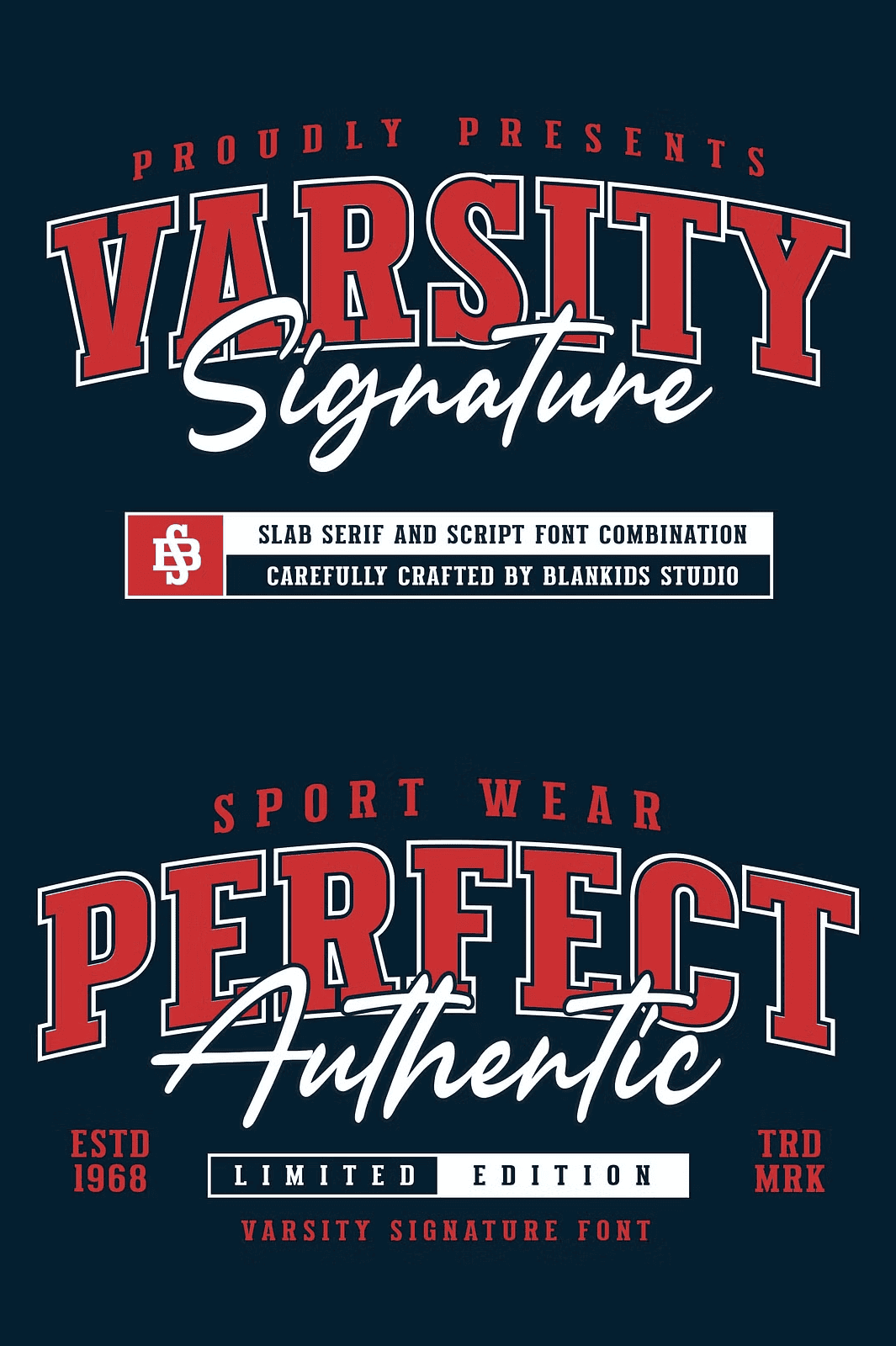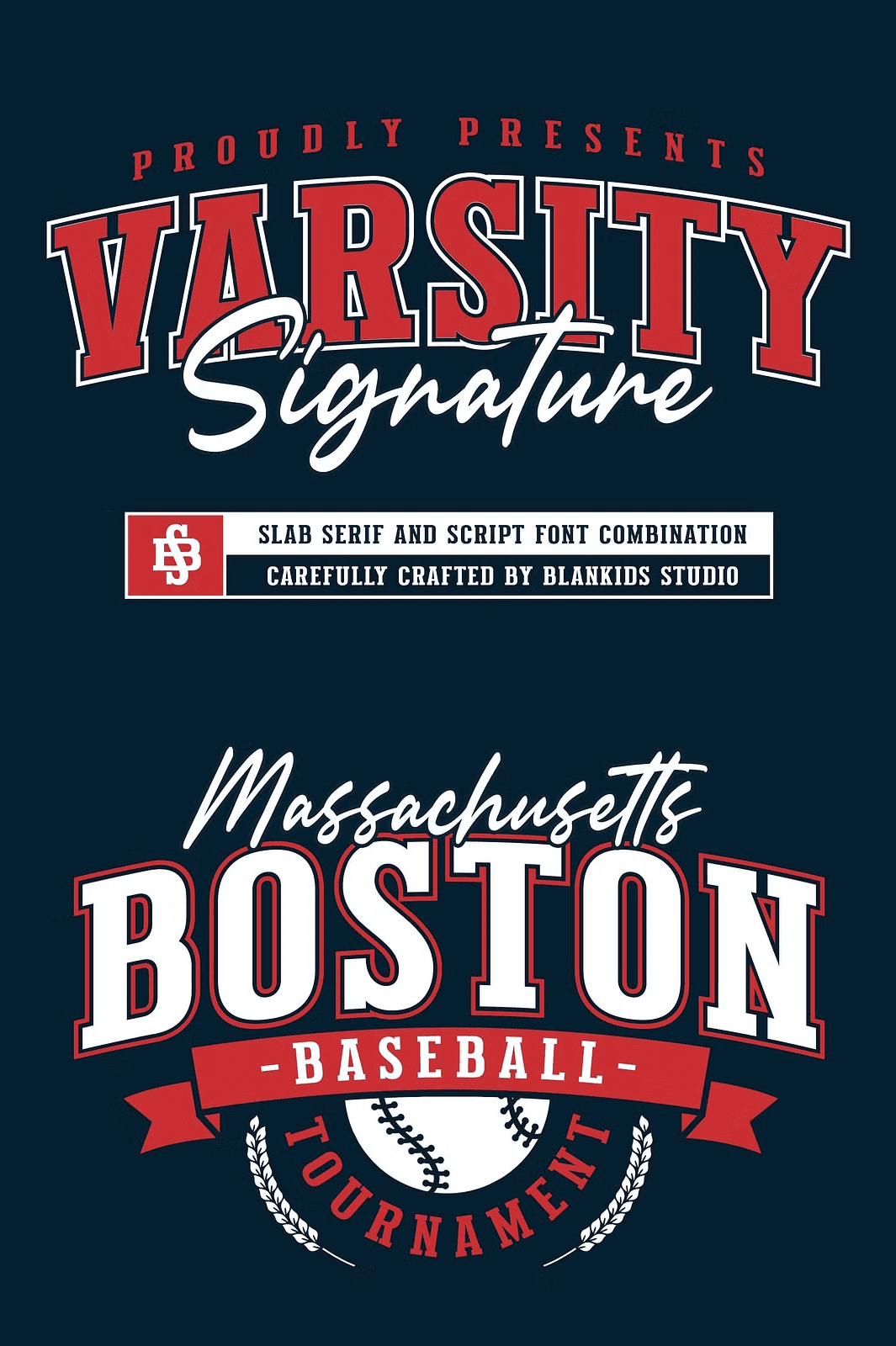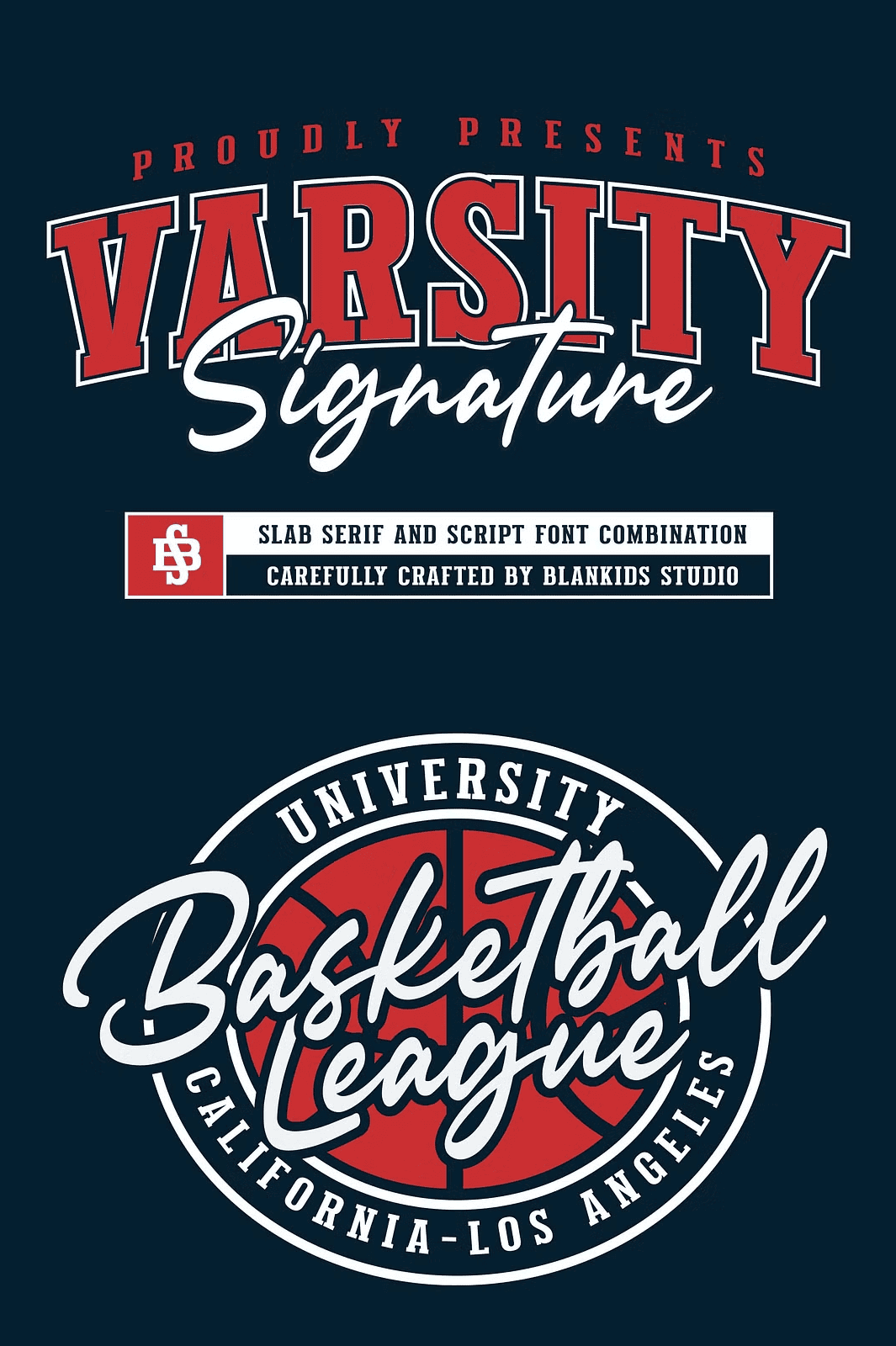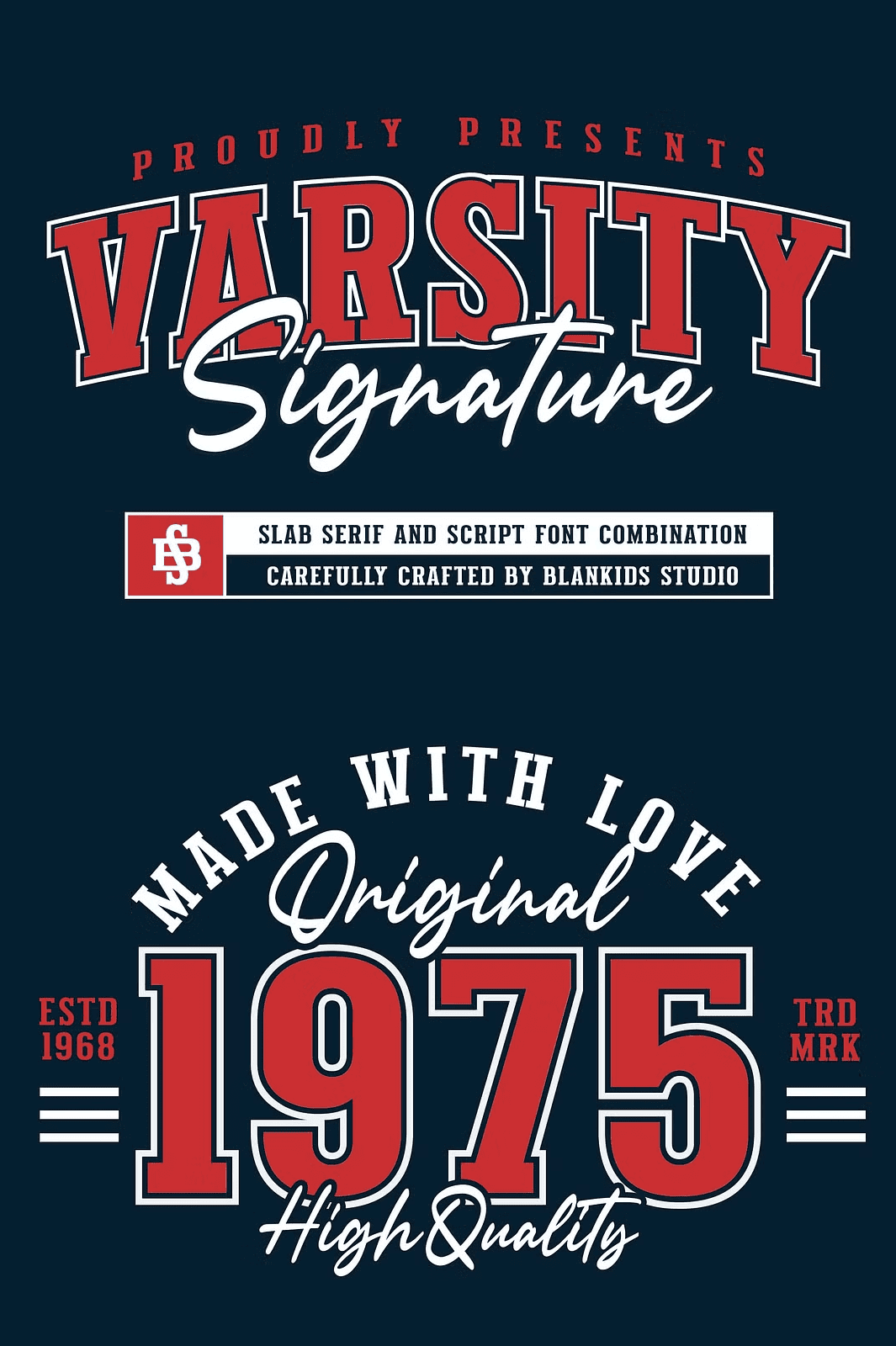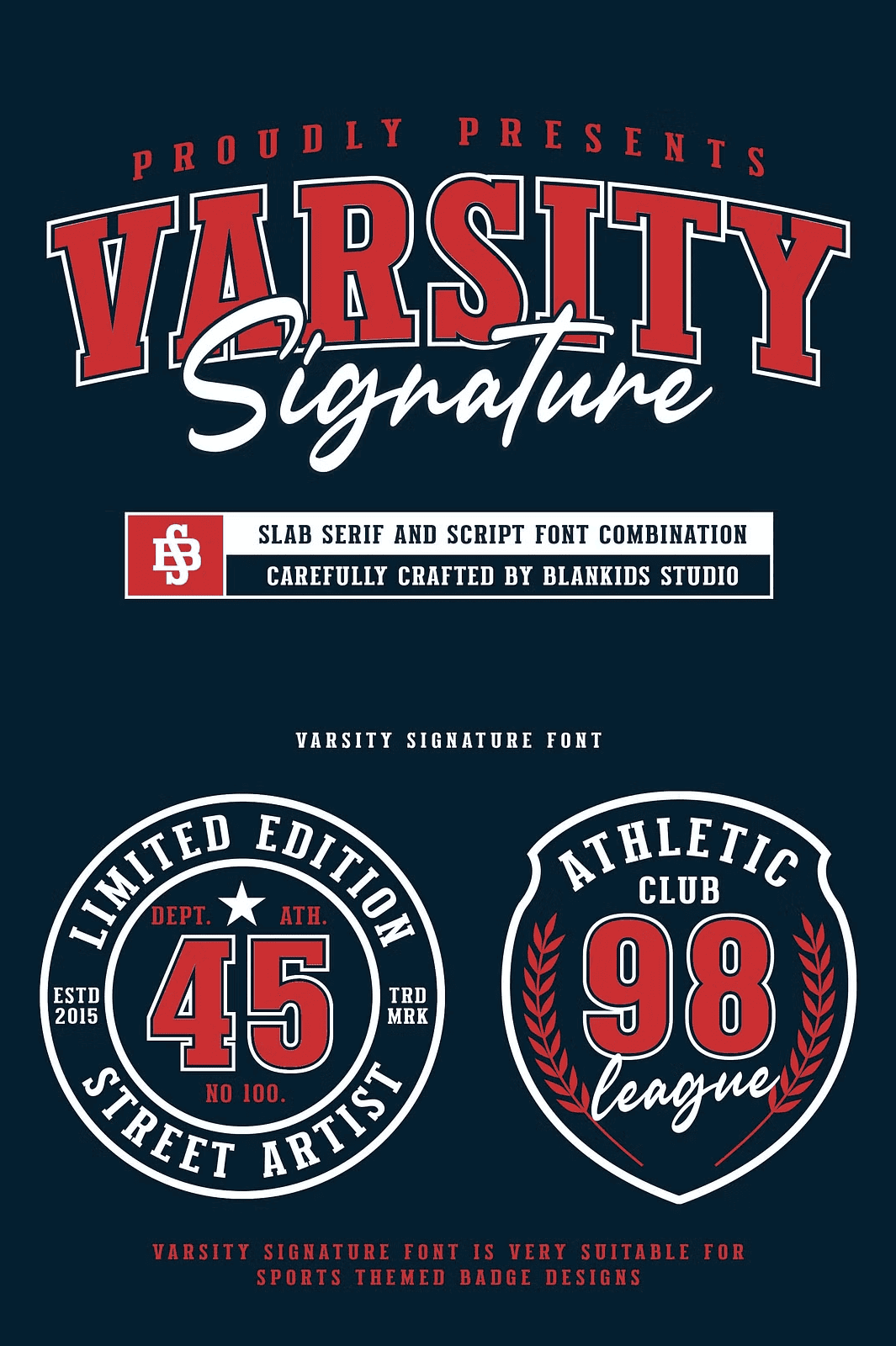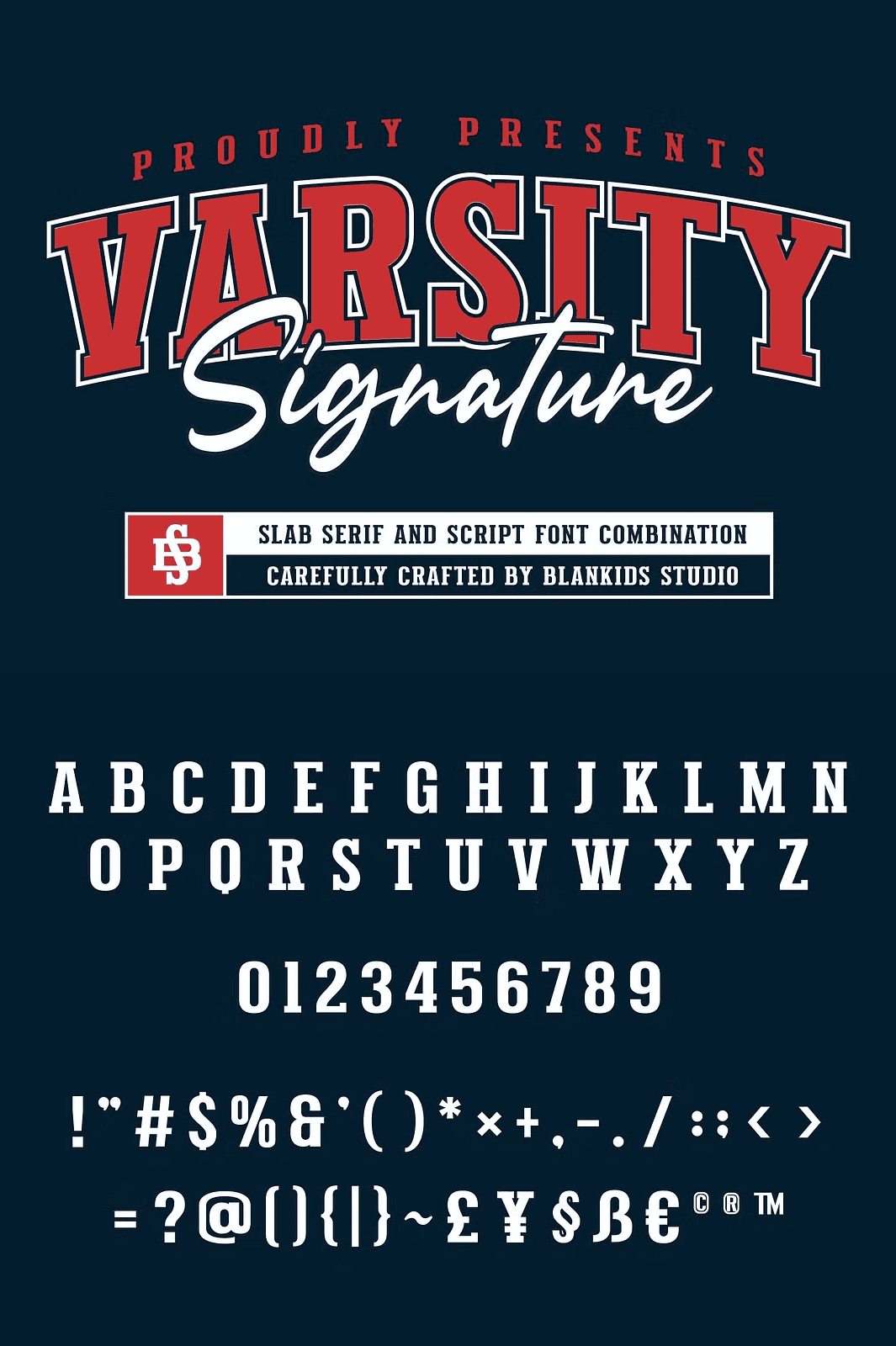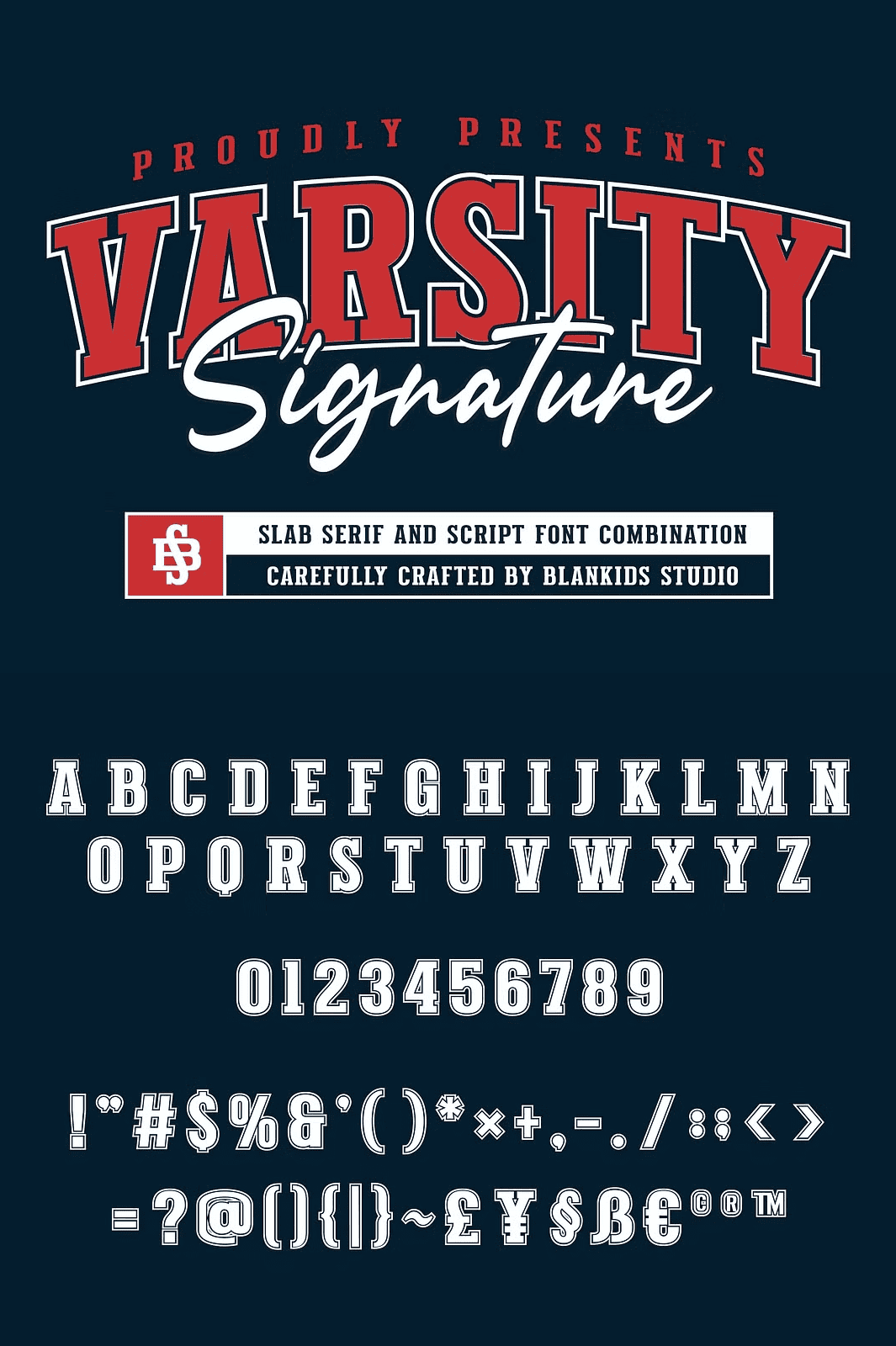
Unleash Sporty Elegance with a Complete Font Suite
Three Distinct Styles Deliver Versatile Expression for Every Creative Vision
Step into the arena with Varsity Signature, a high-energy font combination crafted by Blankids Studio to energize your branding and design projects. This comprehensive suite includes three distinct styles: Varsity Signature, Varsity Signature Outline, and Varsity Signature Script. Each variant brings a unique dimension to your layout—whether you’re crafting championship-ready logos, bold poster headlines, or elegant product packaging, this font family ensures you have the right tool for every moment.
Exquisite Sporty Design Meets Professional Precision
Uppercase, Lowercase, Numerals, and Punctuation All Reinforce a Vibrant Varsity Aesthetic
Every character in Varsity Signature radiates the electric energy of college culture. From crisp, letterboxed typography to flowing script accents, each glyph is engineered for visual impact. The sporty styling features clean lines, bold terminals, and intentional spacing that evoke the spirit of athletic arenas and student life. Whether used in a school anthem campaign or a varsity-themed merch line, this font instantly establishes a strong, authentic tone.
OpenType Features Enable Real-Time Customization and Quick Iteration
Take full creative control with advanced OpenType features such as discretionary ligatures, stylistic sets, and contextual alternates. Switch between clean, minimal versions and bold, stylized variants in seconds—perfect for A/B testing or matching brand mood boards. The script style flows seamlessly in logos and invitations, while the outline version provides bold, high-contrast emphasis ideal for signage and banners.
Stop searching for fonts that mimic the energy of college spirit. Varsity Signature delivers authenticity, power, and creativity at your fingertips. Whether you’re a graphic designer, marketer, or brand owner, this font family empowers you to craft designs that captivate audiences and stand out in a crowded marketplace.